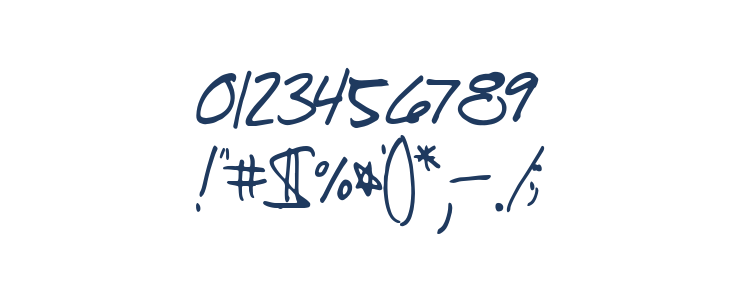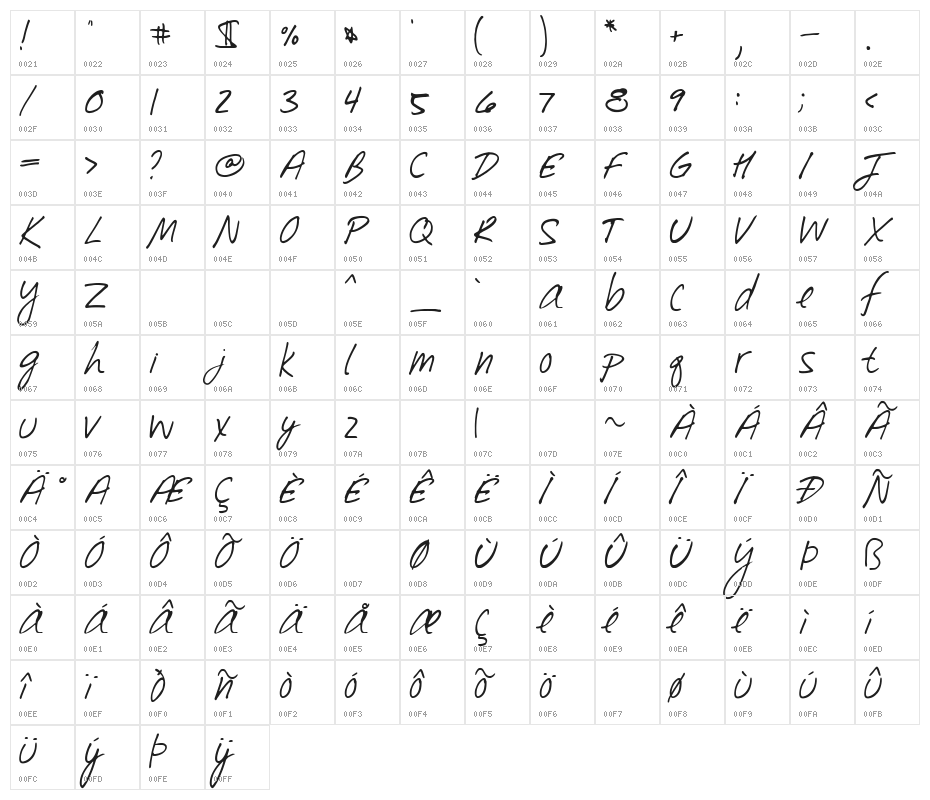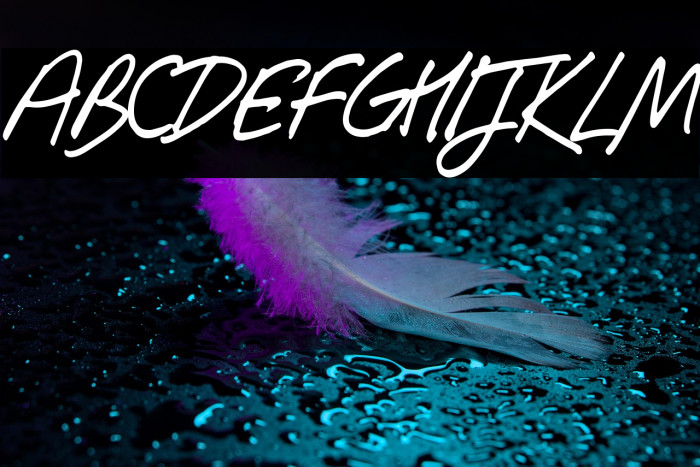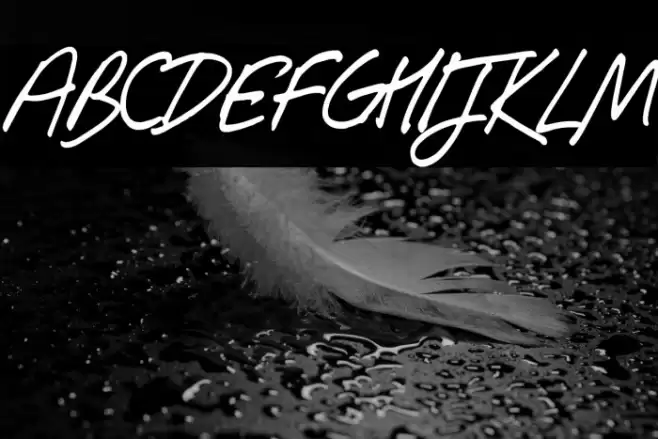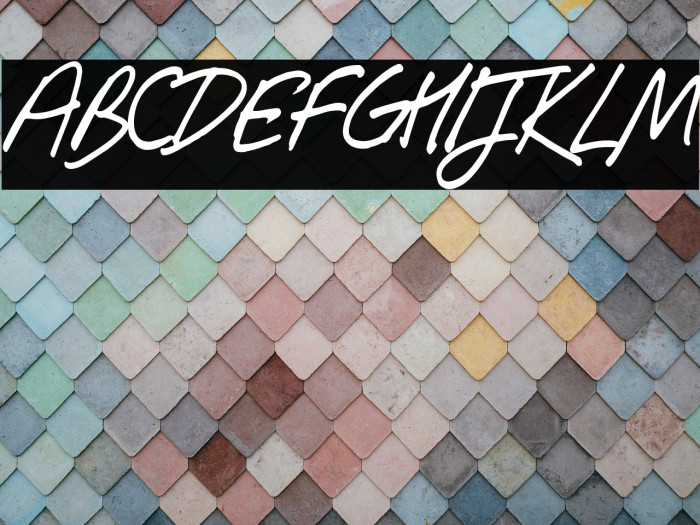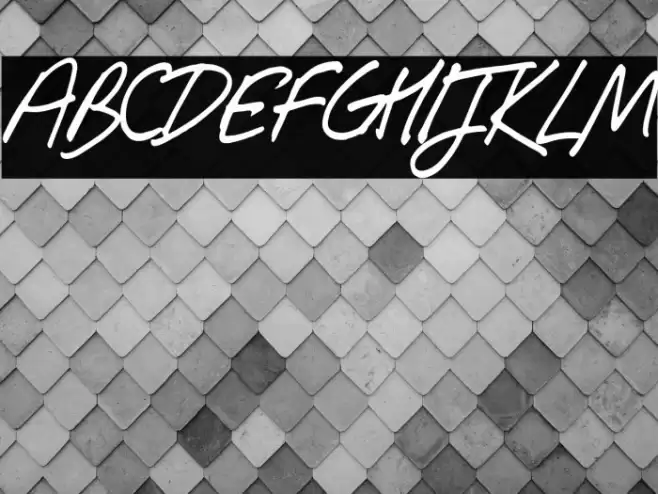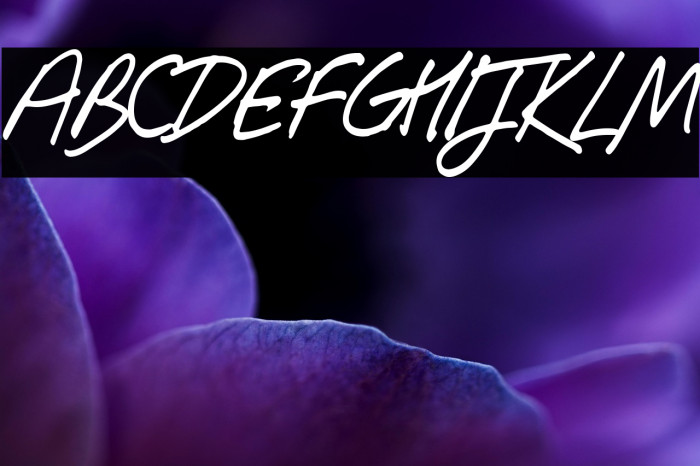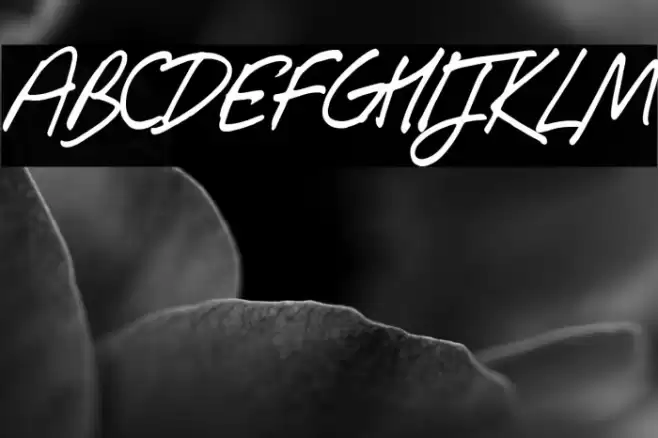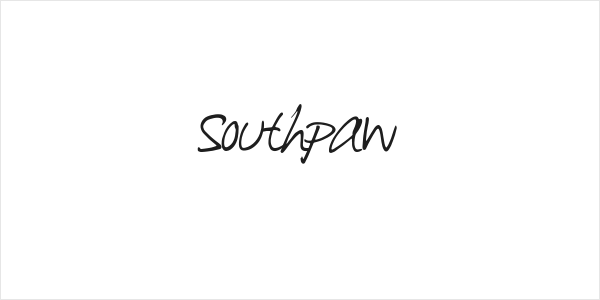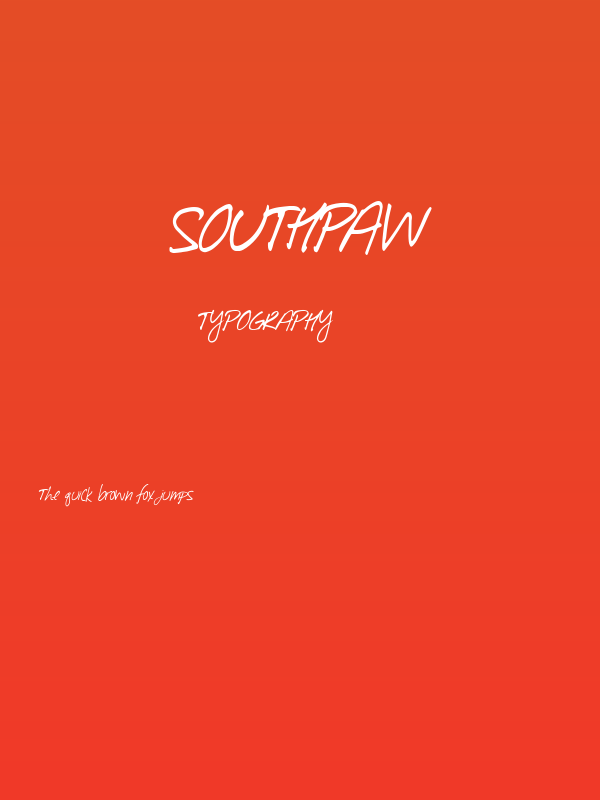
Southpaw Font
Southpaw Description
This font exudes a dynamic and energetic style, characterized by its handwritten appearance. The letters are crafted with a fluid, cursive flow, giving them a natural and spontaneous look. The strokes are bold and confident, with varying thickness that adds a sense of movement and personality. The uppercase and lowercase letters maintain a consistent style, while the numbers and special characters complement the overall aesthetic. This font's informal and lively nature makes it ideal for projects that require a personal touch or a creative flair.
| Proposed Projects | Ideal for greeting cards, invitations, personal branding, and creative posters. |